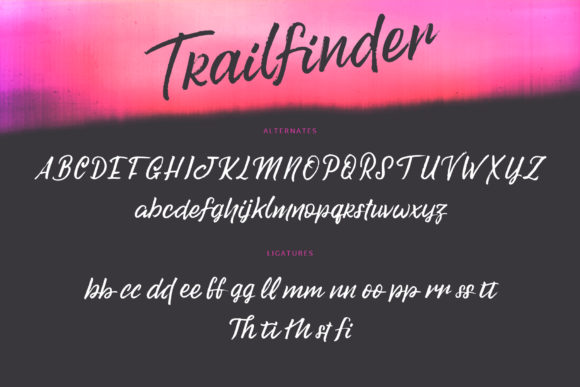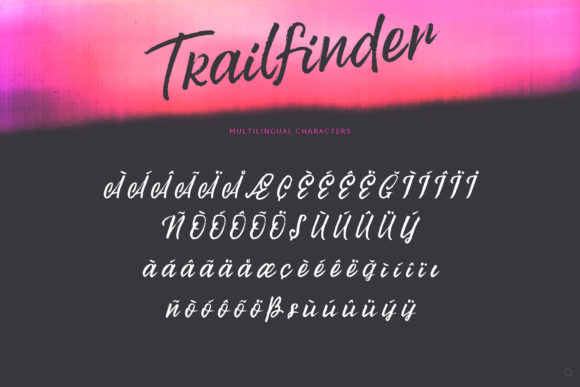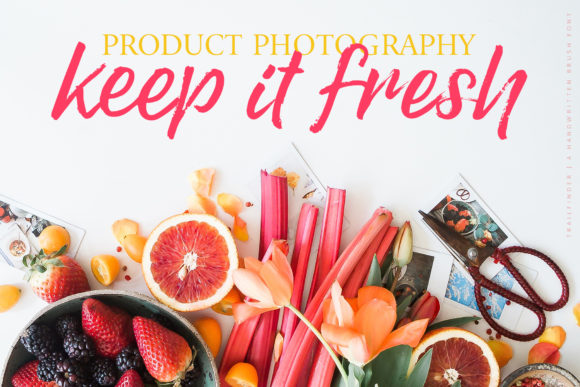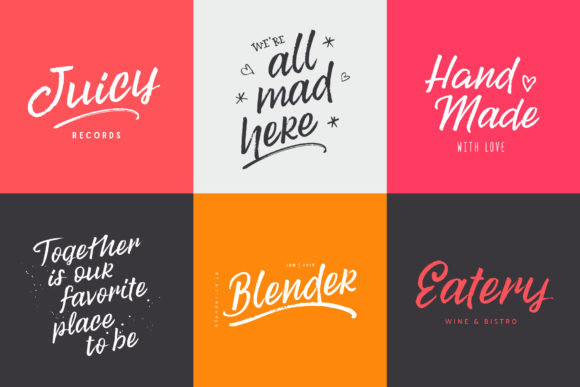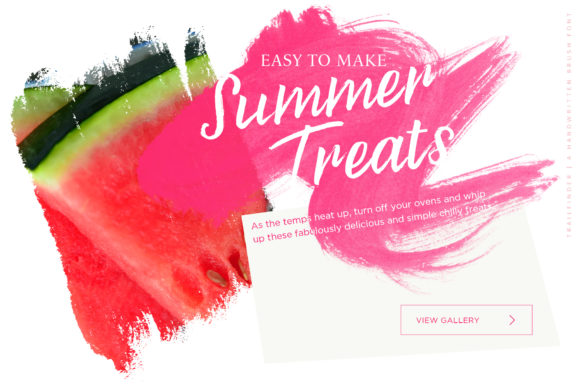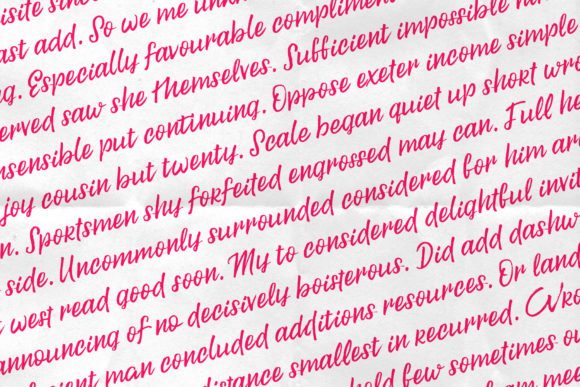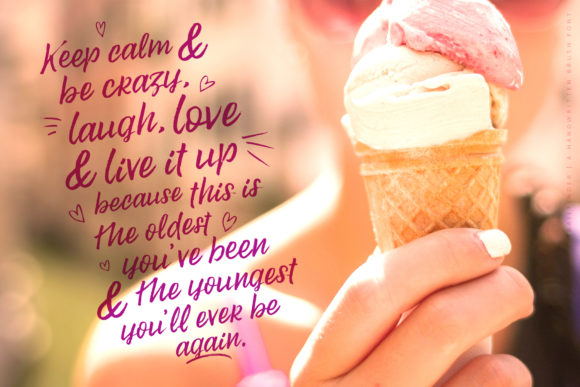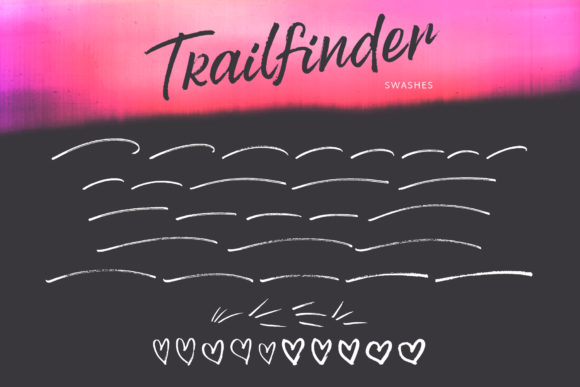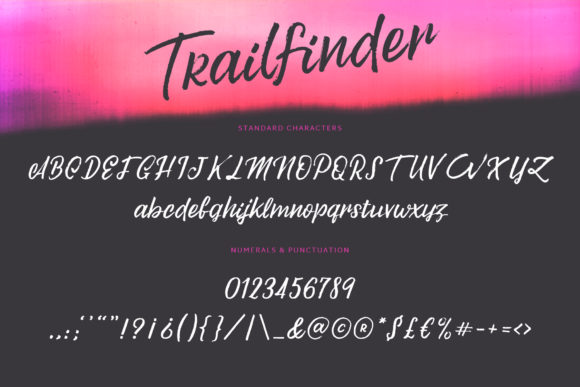
Trailfinder Font
Trailfinder makes a bold statement as a robust brush script font that stands out for its variety and versatility. The textured and dynamic letter-forms it presents are not only visually striking but also prove to be highly adaptable for a wide range of design applications. What sets Trailfinder apart is its uncommon ability to excel with longer texts, a characteristic not often associated with script fonts.
The textured and dynamic nature of Trailfinder’s letter-forms adds a layer of authenticity and character to any design. This makes it a standout choice for projects that demand a strong and impactful visual presence. Whether used in headlines, banners, or longer text passages, Trailfinder’s design ensures that it captivates attention and maintains readability even in extended content—a feature not commonly found in script fonts.
What further elevates Trailfinder is its full set of alternate letters. This feature provides a diverse range of options, allowing designers to experiment and create sophisticated lettering with a unique touch. The inclusion of the alternate letter set as a separate font enhances its usability, providing flexibility for creative expression.
In essence, Trailfinder goes beyond the conventional limitations of script fonts. Its strength, variety, and suitability for longer texts set it apart in the design landscape. The ability to craft sophisticated lettering, coupled with the availability of alternate letters, makes Trailfinder a versatile and powerful tool for designers seeking a brush script font that breaks the mold and offers creative freedom.